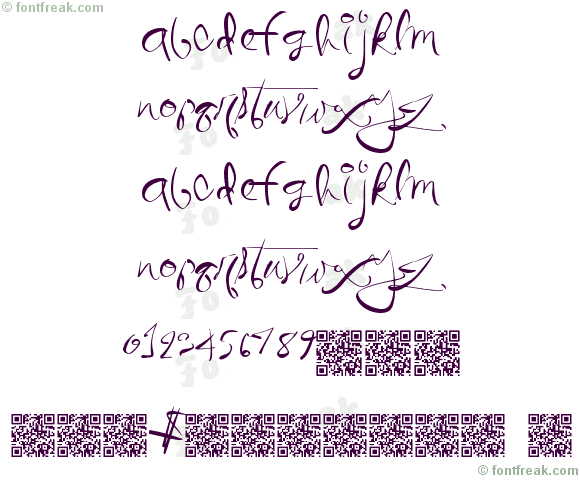
QuicklyWrite
About QuicklyWrite
QuicklyWrite by XEROGRAPHER FONTS is a captivating handwritten font that exudes a casual elegance, making it an exceptional choice for various creative projects. This font, released in 2013, features a unique blend of fluid strokes and playful curves, giving it a personalized touch that stands out. The medium stroke weight offers a balanced appearance, while the slight variations in line thickness add a sense of dynamism and spontaneity. The spacing between characters is thoughtfully designed to maintain readability, ensuring that it captures attention without overwhelming the viewer.
This versatile font is ideal for a wide range of applications. It is particularly well-suited for wedding invitations, where its charming and informal style brings a sense of warmth and intimacy. Additionally, QuicklyWrite can enhance restaurant menus, providing a friendly and inviting look that complements the dining experience. Graphic designers will find it invaluable for branding projects, as it conveys a sense of authenticity and creativity. Moreover, it works beautifully for greeting cards and social media graphics, adding a personal touch to any message.
Targeted toward graphic designers, small business owners, and content creators, QuicklyWrite is a font that encourages creativity and self-expression. Its unique characteristics allow users to craft messages that resonate on a personal level, making it an excellent choice for those looking to make a memorable impact.
What sets the QuicklyWrite font apart is its ability to blend professionalism with a relaxed style, making it suitable for both formal and informal contexts. With a QuicklyWrite font free download available, users can easily incorporate this distinctive typeface into their next project, ensuring their designs are both eye-catching and memorable.